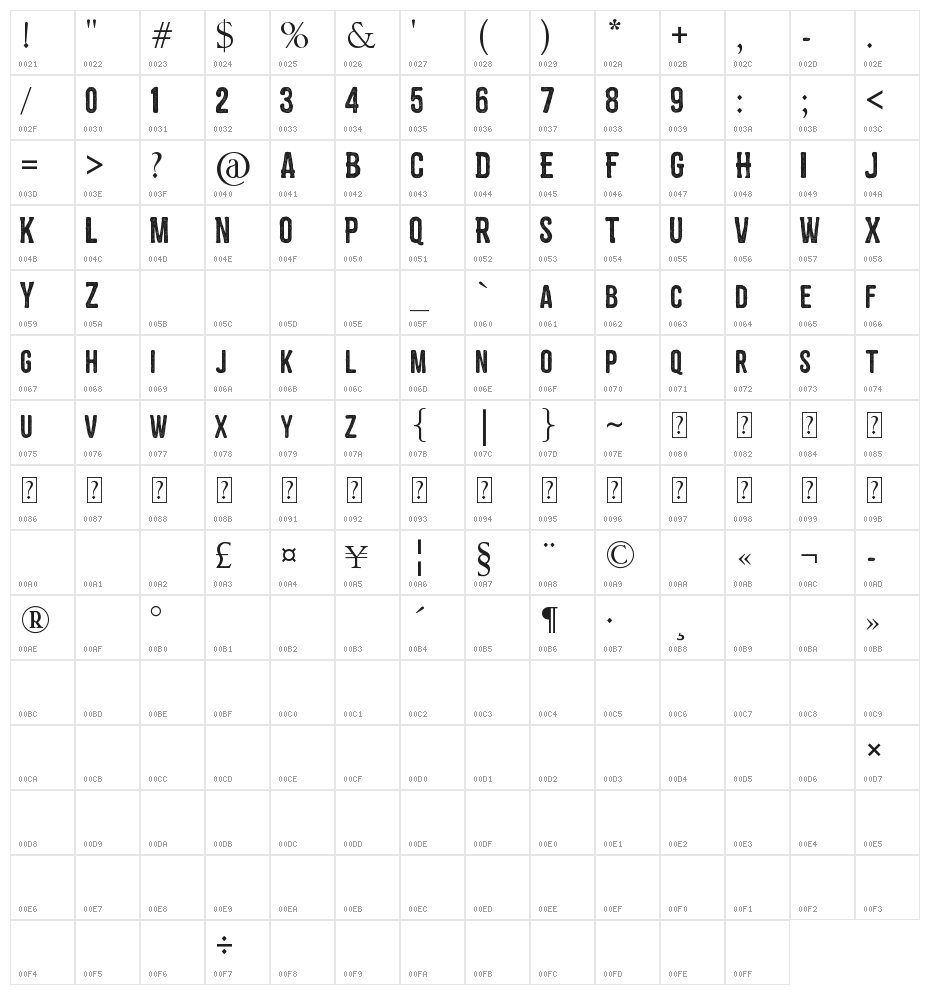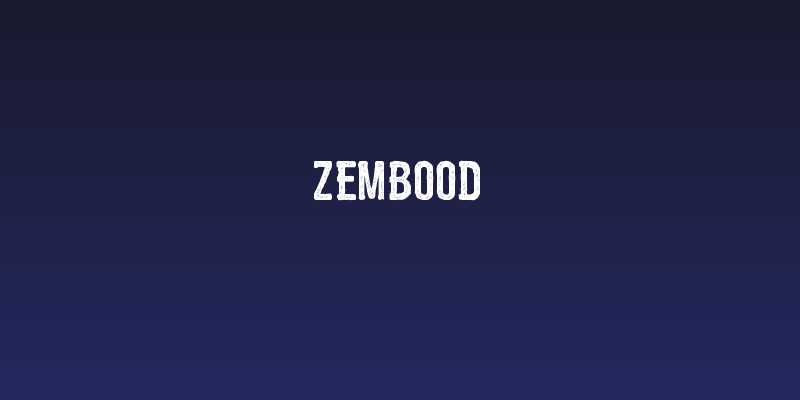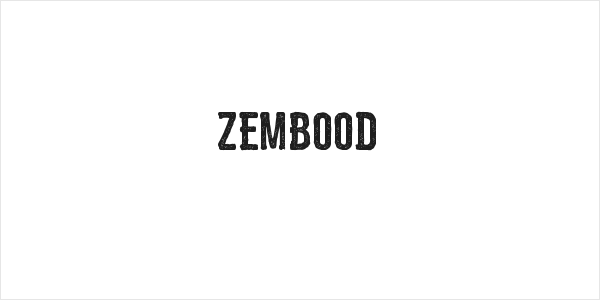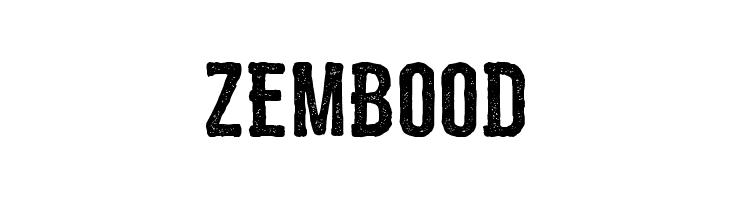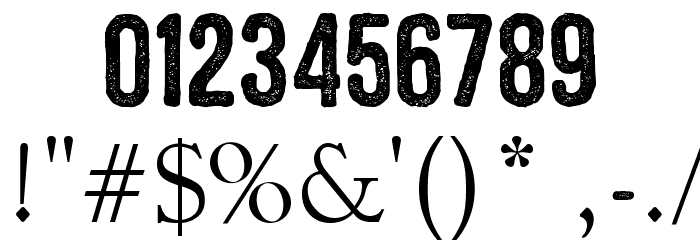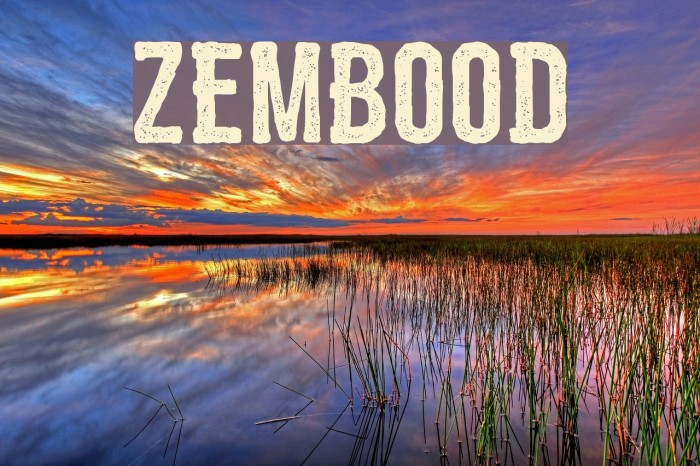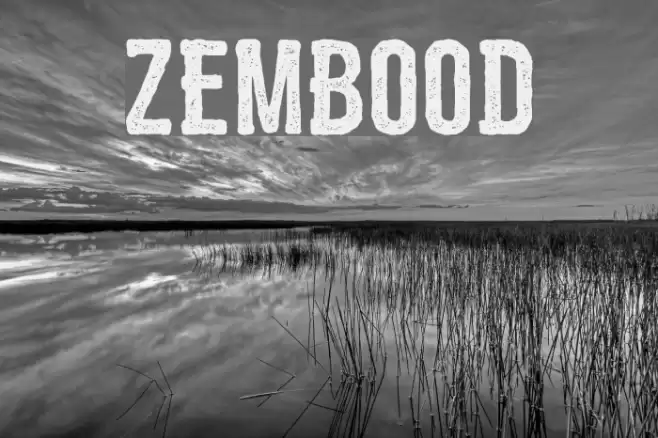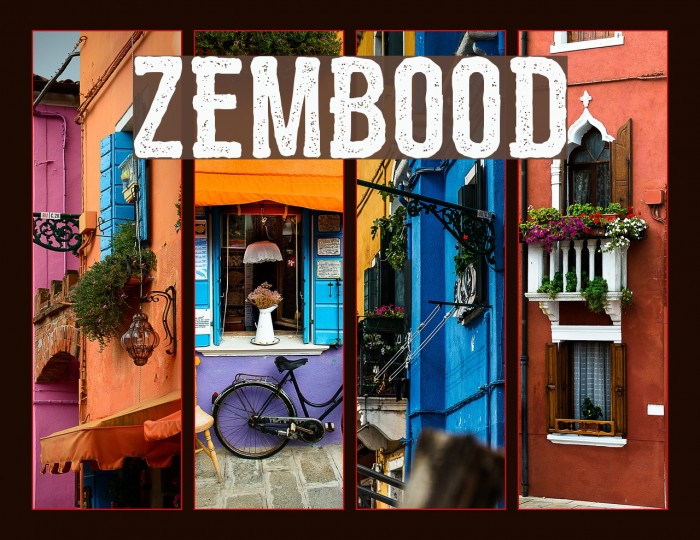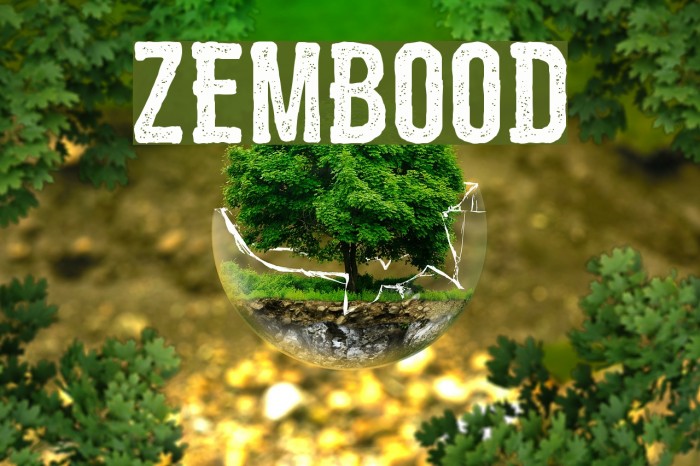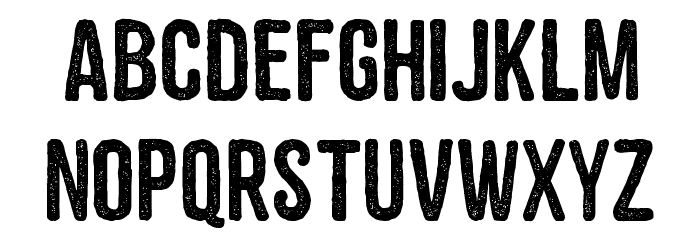
ZEMBOOD Font
ZEMBOOD Description
This font features a bold, textured style with a distressed appearance, giving it a rugged and vintage feel. The characters are uniformly bold with a consistent texture that adds a sense of depth and character. The uppercase and lowercase letters maintain a strong presence, making them suitable for impactful designs. The numbers and special characters follow the same textured pattern, ensuring a cohesive look across all elements. This font's unique style makes it ideal for projects that require a touch of nostalgia or a handcrafted aesthetic.
| Overall Style | Vintage |
| Proposed Projects | Ideal for posters, branding, packaging, and any design that requires a vintage or handcrafted look. |